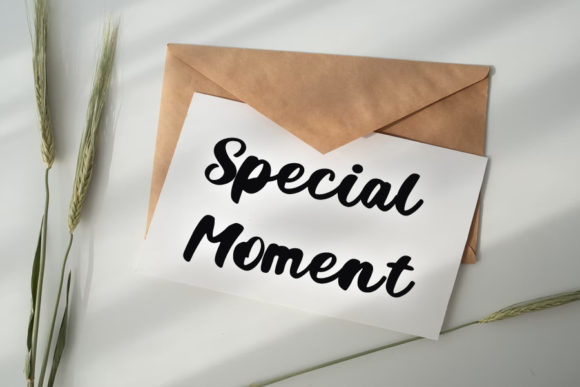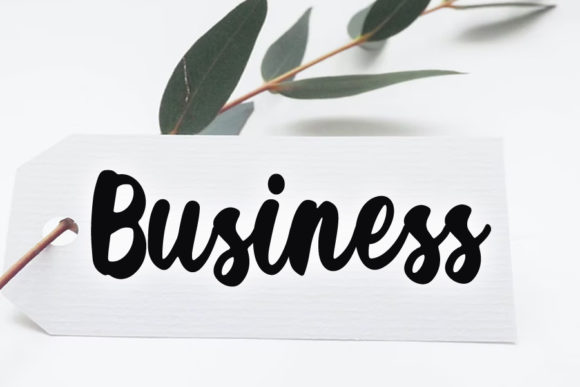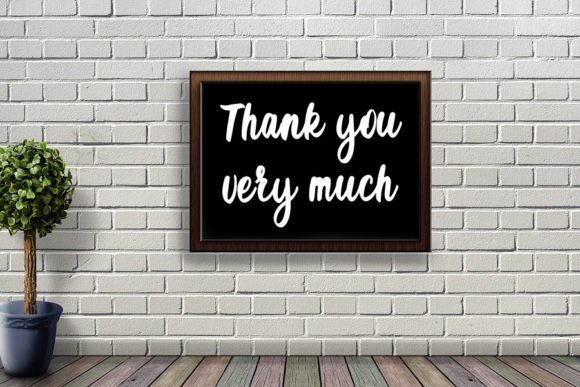
Sweet Honey Font
About Sweet Honey Font
Introducing “Sweet Honey,” a fresh and beautiful font designed for a variety of creative purposes. Whether you’re working on YouTube banners, cover logo mockups, wedding invitations, ID cards, flyers, or crafts, this font brings a versatile and appealing aesthetic to your projects. The use of “Sweet Honey” not only enhances the visual appeal but also contributes to the progress and development of your business. In addition, this font is characterized by its simplicity and uniqueness.
Elevate your YouTube banners with the fresh and beautiful style of “Sweet Honey,” creating a visually captivating and engaging channel presence. The font’s versatile appeal makes it a great choice for connecting with your audience.
For cover logo mockups, “Sweet Honey” infuses a sense of freshness and beauty, contributing to a modern and memorable brand identity. Its simplicity ensures a clean and sophisticated look, helping your logo stand out with a unique charm.
Crafting wedding invitations becomes an artistic endeavor with the elegant touch of “Sweet Honey.” The font’s unique character adds a personal and stylish feel to the invitations, making each piece a work of art.
In summary, “Sweet Honey” is more than just a font; it’s a design tool crafted to enhance your creative projects. Its fresh and beautiful qualities, combined with simplicity and uniqueness, make it a versatile choice for various applications, allowing your designs to thrive and make a lasting impact.